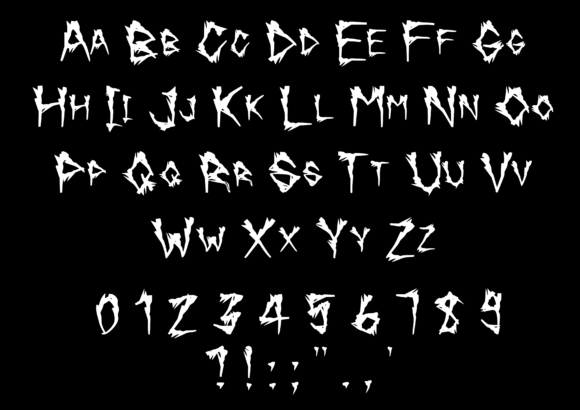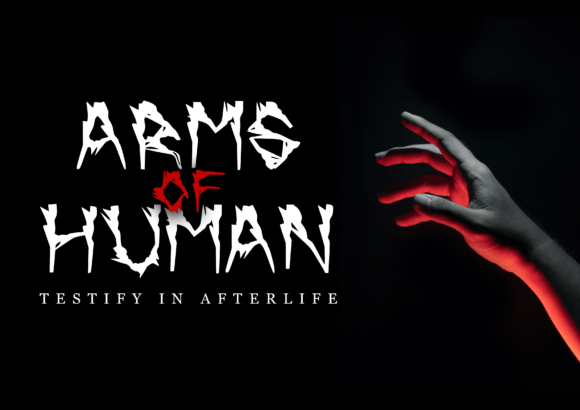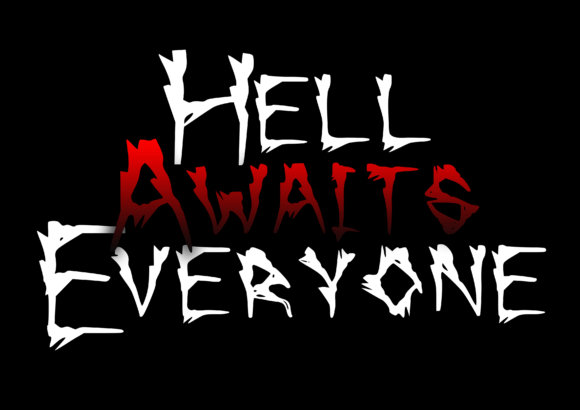
Introduction to Pain Eternity Font
Pain Eternity is a scary display font.
It is inspired by horror movies, which makes its appearance scary and terrifying The typeface can be used for Halloween posters, metal band logos, album covers, or anything that needs a dramatic look.
Key Features of Pain Eternity Font
Why Choose Pain Eternity Font?